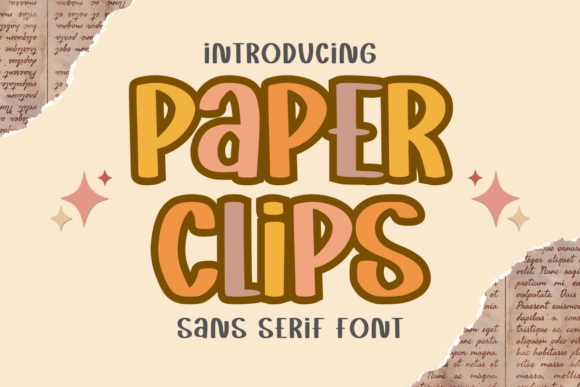
Introducing Paper Clips Font: The Perfect Handwritten Sans-Serif Font for Creative Projects
Are you looking for a font that can add a personal touch to your writing and designs? Look no further than Paper Clips Font, a playful and simple handwritten sans-serif font that’s perfect for a variety of creative projects. In this article, we’ll explore the features and benefits of Paper Clips Font, and show you how it can be used to enhance your daily journals, planners, calendars, and more.
What is Paper Clips Font?
Paper Clips Font is a unique and charming handwritten sans-serif font that’s designed to bring a touch of personality to your writing and designs. Its playful and simple style makes it perfect for a wide range of creative projects, from daily journals and planners to scrapbooking, invitations, and teaching materials.
One of the standout features of Paper Clips Font is its versatility. It’s a font that’s easy to read and use, making it perfect for both personal and professional projects. Whether you’re looking to add a personal touch to your writing or create visually appealing designs, Paper Clips Font is the perfect choice.
Features of Paper Clips Font
So, what makes Paper Clips Font so special? Here are just a few of its key features:
- Playful and simple style: Paper Clips Font has a unique and charming style that’s perfect for adding a personal touch to your writing and designs.
- Handwritten sans-serif font: Its handwritten style gives it a personal and informal feel, while its sans-serif design makes it easy to read.
- Versatile: Paper Clips Font is perfect for a wide range of creative projects, from daily journals and planners to scrapbooking, invitations, and teaching materials.
- Easily readable: The font is designed to be easy to read, making it perfect for both personal and professional projects.
Uses for Paper Clips Font
So, what can you use Paper Clips Font for? The possibilities are endless! Here are just a few ideas to get you started:
- Daily journals and planners: Add a personal touch to your daily journals and planners with Paper Clips Font.
- Scrapbooking: Use Paper Clips Font to create unique and personalized scrapbook pages.
- Invitations: Create beautiful and personalized invitations for special occasions, such as birthdays, weddings, and graduations.
- Teaching materials: Use Paper Clips Font to create engaging and interactive teaching materials, such as worksheets, activity sheets, and educational posters.
- Low-content projects: Paper Clips Font is also perfect for low-content projects, such as workbooks, sheets, and KDP templates.
Benefits of Using Paper Clips Font
So, why should you choose Paper Clips Font for your creative projects? Here are just a few benefits of using this unique and charming font:
- Adds a personal touch: Paper Clips Font adds a personal and informal feel to your writing and designs, making them more relatable and engaging.
- Easy to use: The font is easy to read and use, making it perfect for both personal and professional projects.
- Versatile: Paper Clips Font is perfect for a wide range of creative projects, from daily journals and planners to scrapbooking, invitations, and teaching materials.
- Time-saving: With Paper Clips Font, you can create visually appealing designs in no time, saving you time and effort.
Tips for Using Paper Clips Font
Here are a few tips for getting the most out of Paper Clips Font:
- Experiment with different colors: Try using Paper Clips Font with different colors and backgrounds to create unique and visually appealing designs.
- Mix and match with other fonts: Don’t be afraid to mix and match Paper Clips Font with other fonts to create interesting and dynamic designs.
- Use it for headings and titles: Paper Clips Font is perfect for headings and titles, adding a personal touch to your writing and designs.
- Use it for body text: The font is also easy to read, making it perfect for body text in your designs.
In conclusion, Paper Clips Font is a unique and charming handwritten sans-serif font that’s perfect for a wide range of creative projects. Its playful and simple style makes it easy to read and use, while its versatility makes it perfect for both personal and professional projects. Whether you’re looking to add a personal touch to your writing or create visually appealing designs, Paper Clips Font is the perfect choice.
- What is Paper Clips Font? Paper Clips Font is a playful and simple handwritten sans-serif font that’s perfect for a wide range of creative projects.
- Is Paper Clips Font easy to read? Yes, Paper Clips Font is designed to be easy to read, making it perfect for both personal and professional projects.